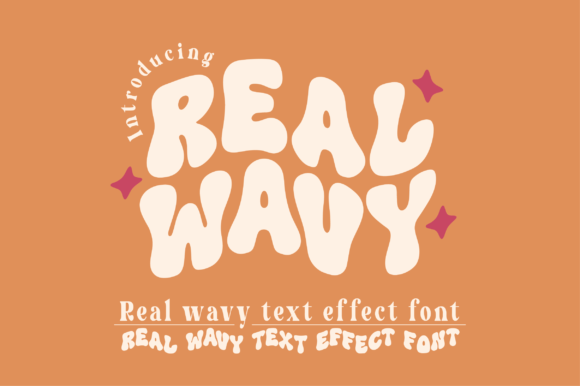
Looking for a font that will make your projects stand out? Look no further than Real Wavy Font, a bold and quirky display font designed to captivate and inspire. Created by SVG Bloom, this font is perfect for all your retro-themed projects, adding a touch of nostalgia and creativity.
Real Wavy Font is not your ordinary display font. Its unique and playful design adds character and charm to any text. Whether you're designing banners, creating social media posts, or designing invitations and cards, this font will surely make a statement. It's the perfect choice for those who want to break free from the ordinary and add a touch of fun to their designs.
With Real Wavy Font, the possibilities are endless. Let your imagination run wild as you experiment with different styles and layouts. Whether you're aiming for a vintage look or a bold and modern feel, this font has got you covered. Its versatility allows it to adapt to any project, making it the go-to choice for designers and creatives alike.
Not only does Real Wavy Font offer eye-catching aesthetics, but it also enhances the overall readability of your text. Its carefully crafted design ensures that your message is delivered with utmost clarity and impact. Stand out from the crowd and grab your audience's attention with this captivating font.